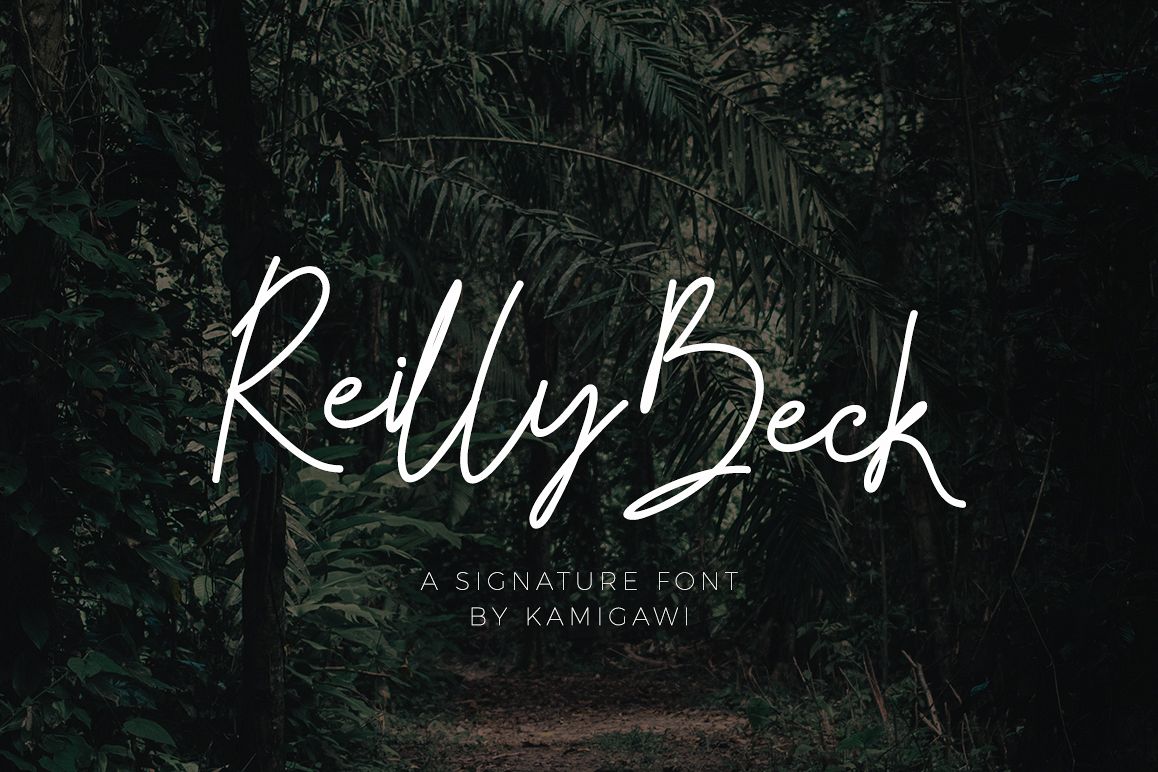
Reilly Beck - Signature Font
Give your designs an authentic handcrafted feel. "Reilly Beck Signature" is an exclusive typeface perfectly suited to signature, stationery, logo, typography quotes, magazine or book cover, website header, clothing, branding, packaging design and more.